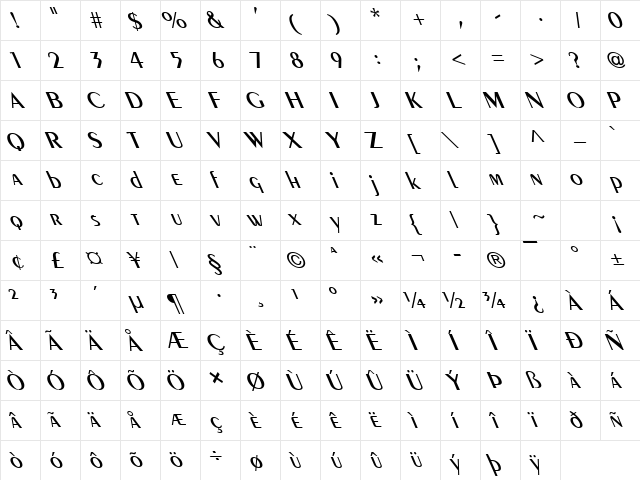
Pare Reverse Italic
Design Context for Pare Reverse Typeface
Pare Reverse takes a measured approach to typography — its balanced proportions and neutral character make it a reliable workhorse for both digital and print work. Its italic angle brings a sense of urgency and motion to the letterforms.
Pro Tip: Use Pare Reverse for emphasis, pull quotes, and subheadings where its slanted energy can add rhythm to the layout.